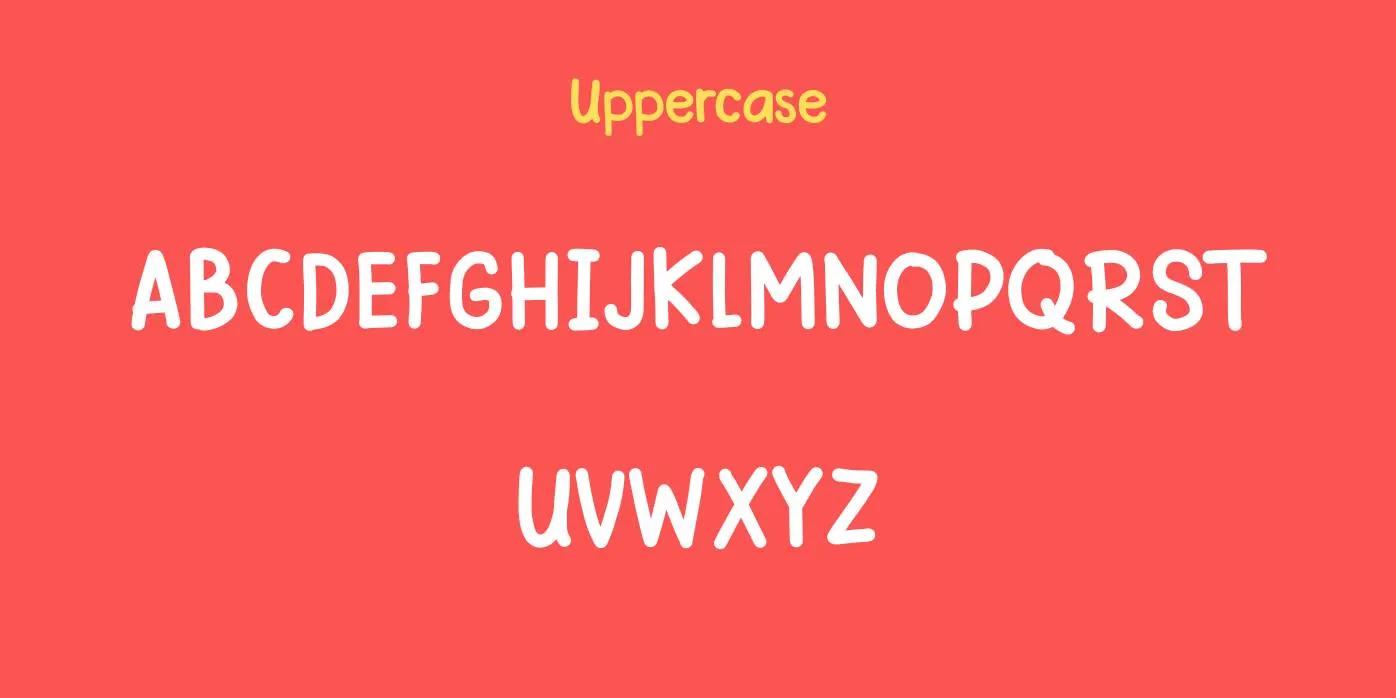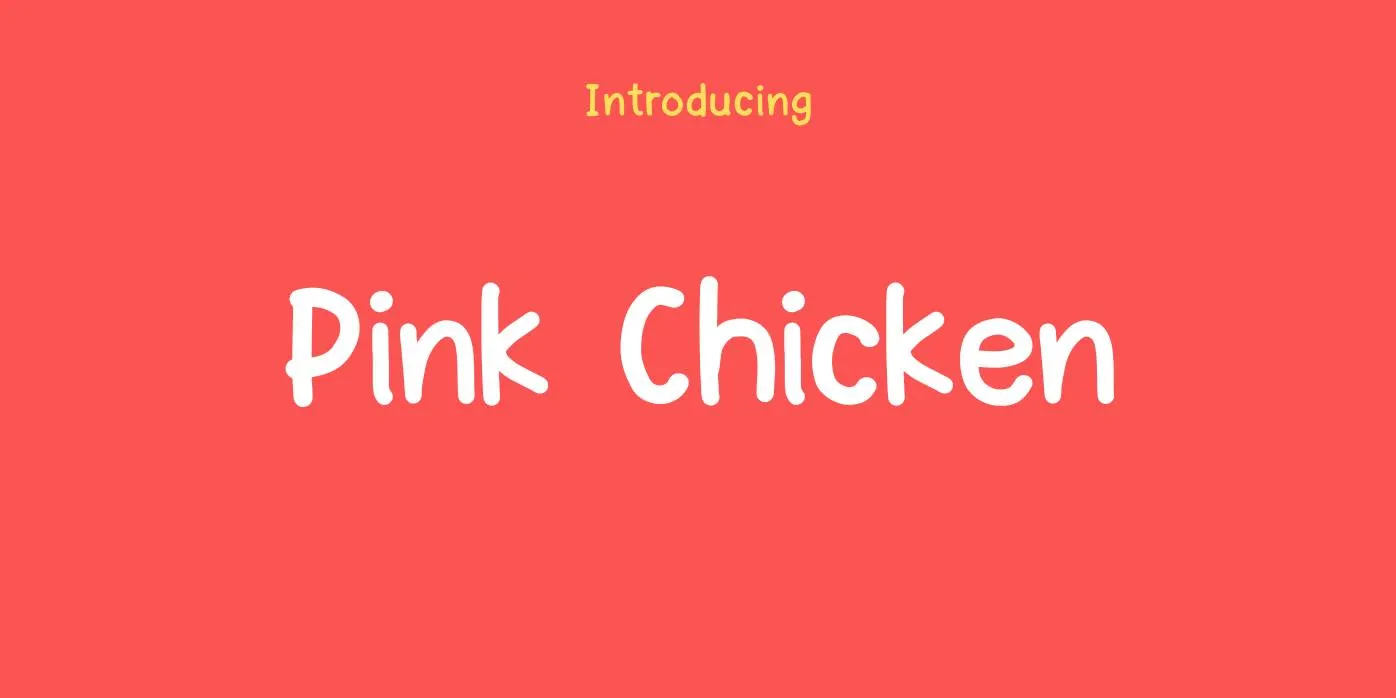
Pink Chicken Font
Today, we discuss detailed information about the Pink Chicken Font. It was designed by Gitayogi Irhandi and manufactured by Scratch Design. It is a very cute comic font that can be used to make so many different projects. The pattern nature of this font is regular and its pitch is not monospaced.
It contains 376 characters, 373 glyphs, and 1000 units per Em. An online generator tool also supports this font to make simple text into a stylish look. This stunning typeface comes in various type of weights and styles.  Usage You can use this fancy font to make so many different projects. It has characters, symbols, numbers, symbols, small letters, capital letters, and special characters that are suitable for creating any project.
It can be used to make different types of titles for cartoon shows and comic storybooks. You can use it to make attractive logos for different brands. You can use it for branding and advertisement purposes. It can also be printed on T-shirts for a comic look.
FAQs! Who created Pink Chicken Font? It was designed by Gitayogi Irhandi and manufactured by Scratch Designs. It is a very amazing font and can be used for many projects.